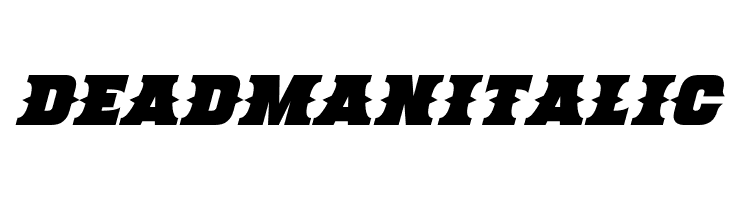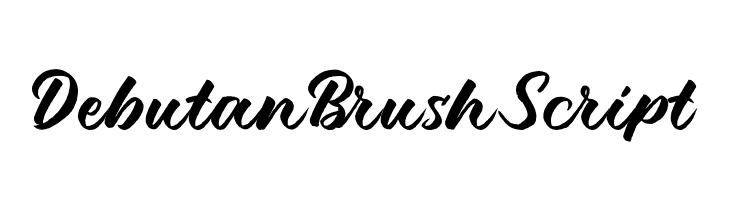
A dynamic, edgy font with sharp, angular strokes and a hand-drawn feel.
A bold, futuristic font with sharp, angular edges and geometric shapes.
A bold, italicized font with a futuristic and dynamic style.
A bold, decorative slab serif font with unique cut-out details.
A bold, italic font with sharp edges and a unique cut-out style.
A bold, brushstroke-style font with an edgy, rebellious aesthetic.
A bold, brush-style font with dynamic, hand-painted strokes.
A bold, geometric font with a futuristic and industrial design.
A lively, brush script font with bold, expressive strokes and high contrast.
A playful, bold font with rounded, thick strokes and a whimsical touch.